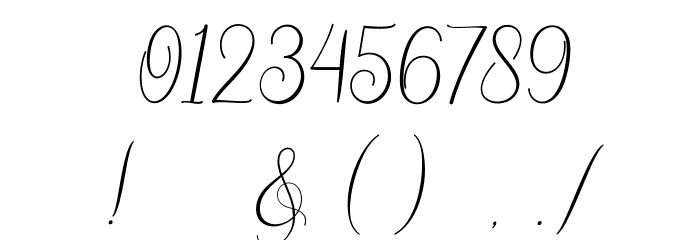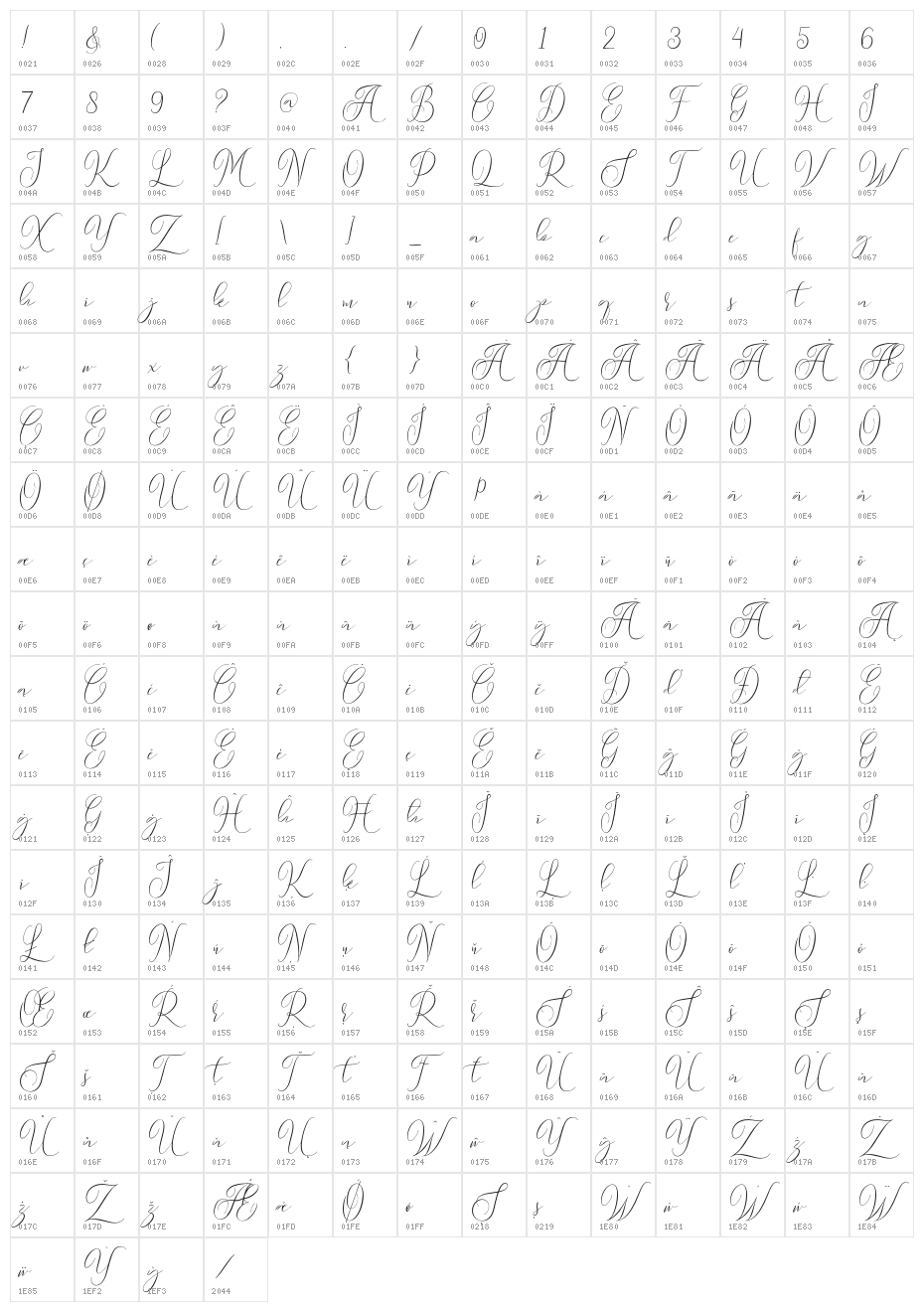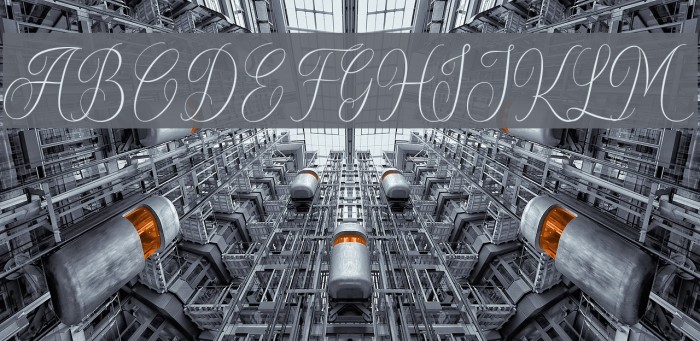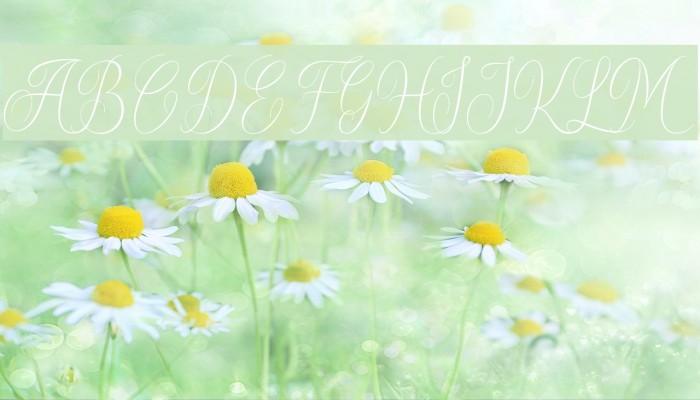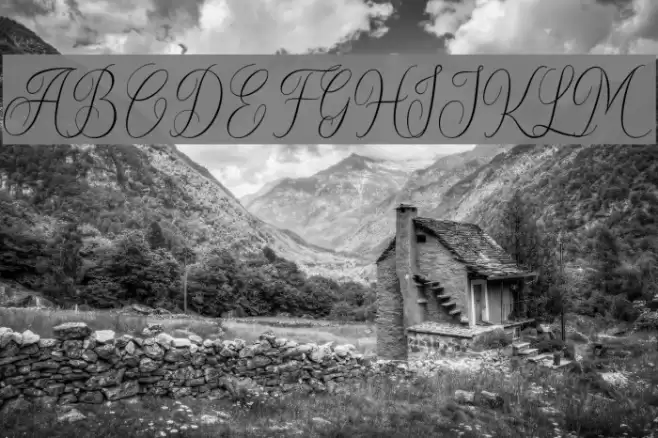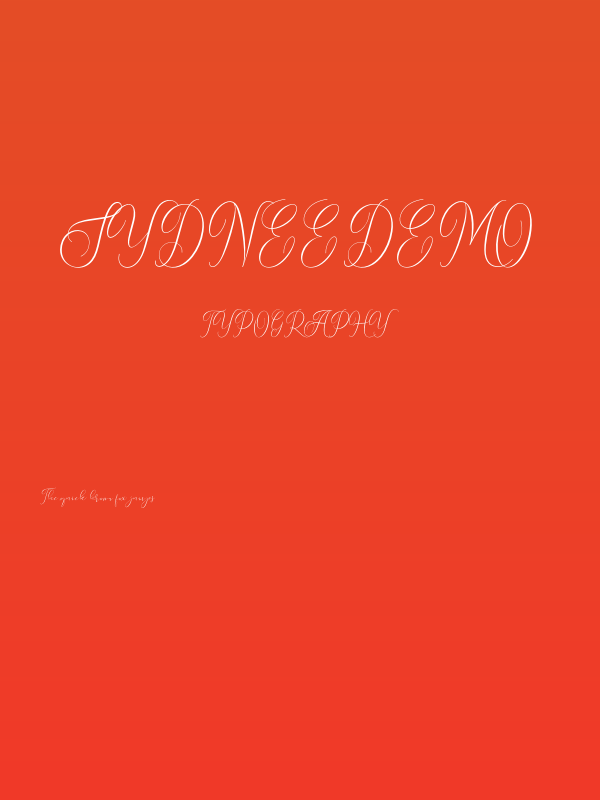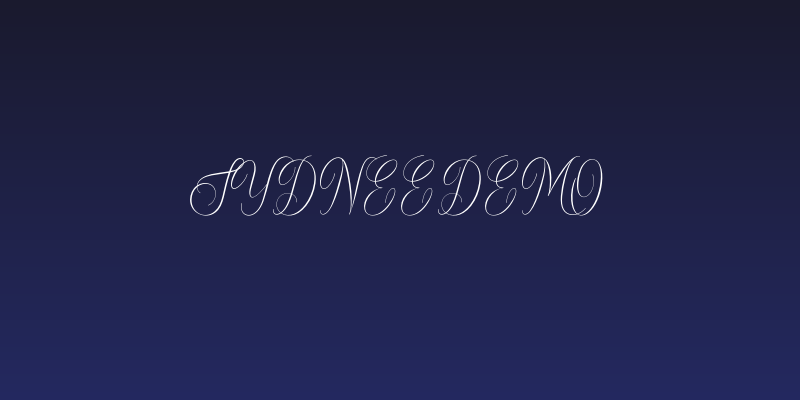
SydneeDemo Font
SydneeDemo Description
This elegant script font features a flowing, cursive style with high contrast between thick and thin strokes. The uppercase letters are ornate and sophisticated, while the lowercase letters maintain a graceful continuity. The numerals are stylishly designed to complement the overall aesthetic, and the special characters add a touch of flair. The font's delicate curves and loops give it a refined and luxurious feel, making it ideal for formal invitations, branding, and decorative purposes.
| Use Case | Invitations, Branding, Decorative text |
| Proposed Projects | Ideal for wedding invitations, luxury branding, greeting cards, and decorative signage. |